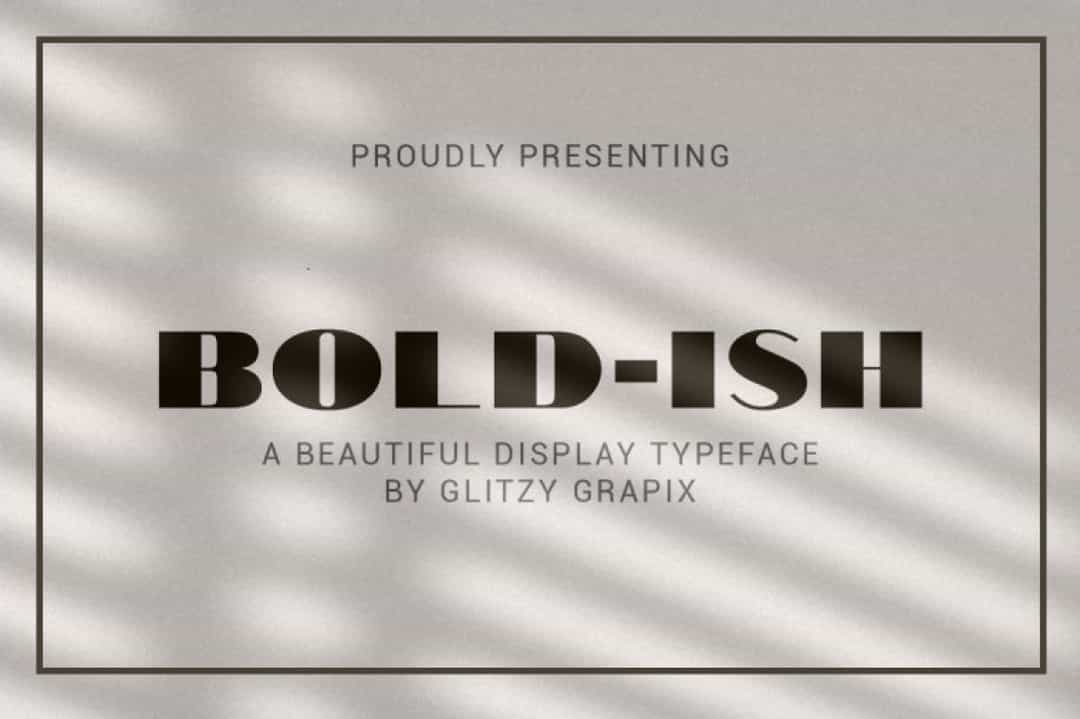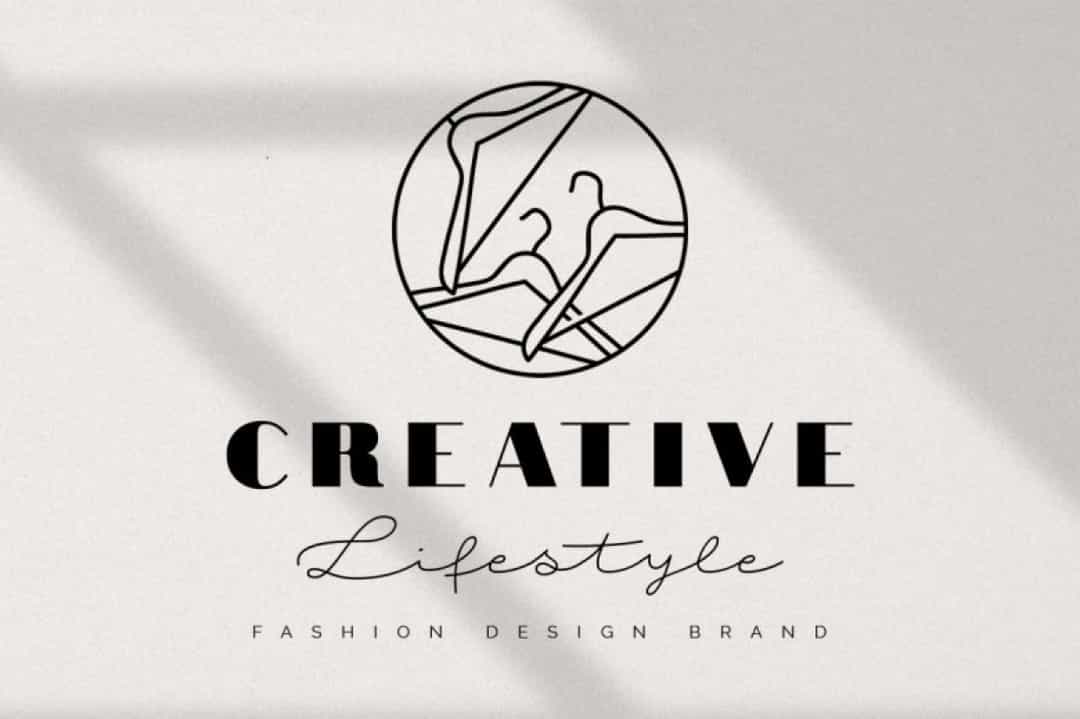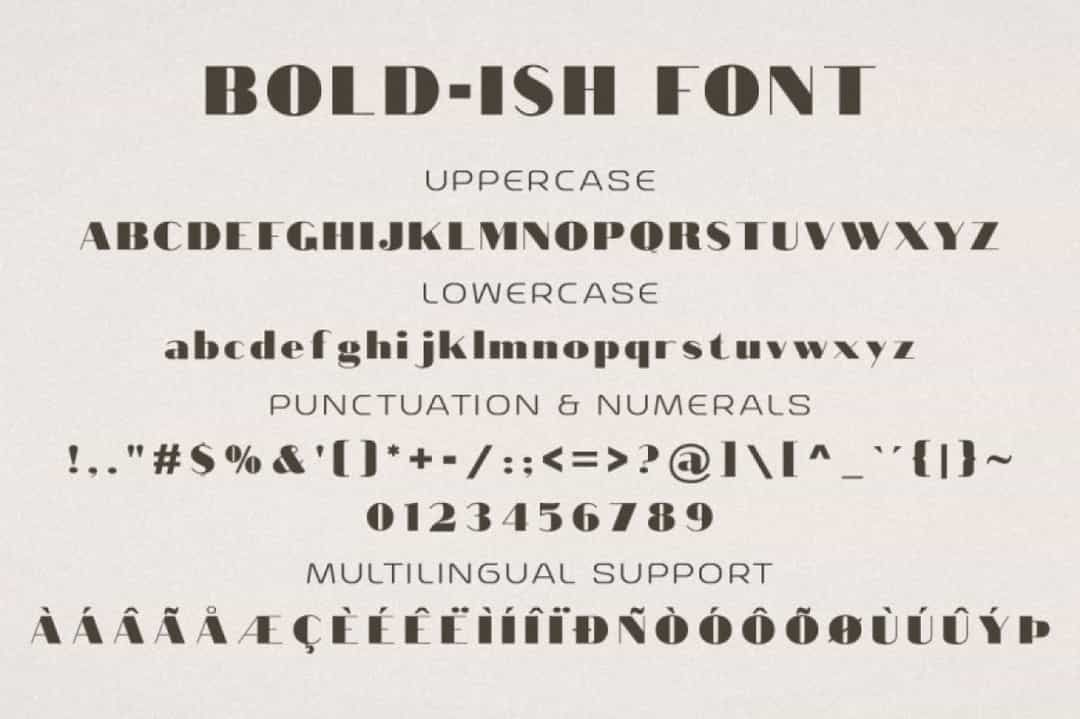
Bold-ish is an elegant Sans serif font. With its elegance, boldness and simple design it makes this font look truly captivating. Although intended to be used primarily as an email font it can also be used in logos, advertisements T-shirts letterhead posters signage labels badges etc. Bold-ish comes equipped with uppercase characters numerals punctuation.